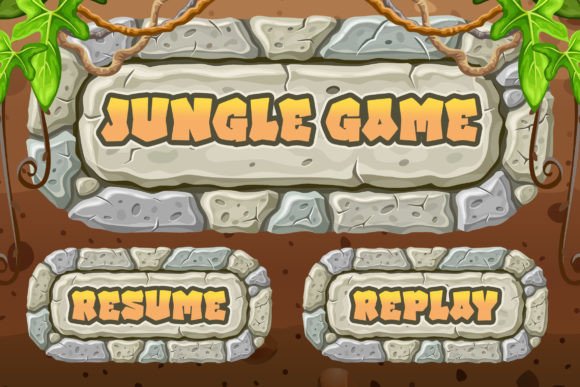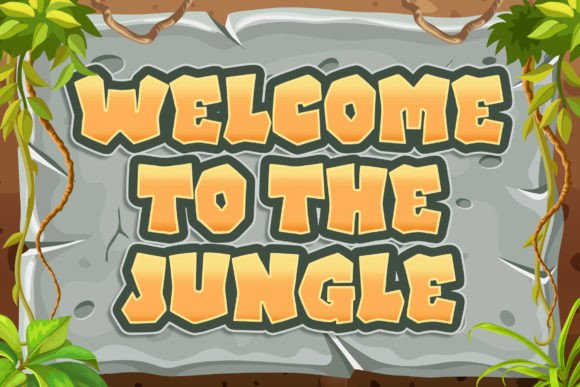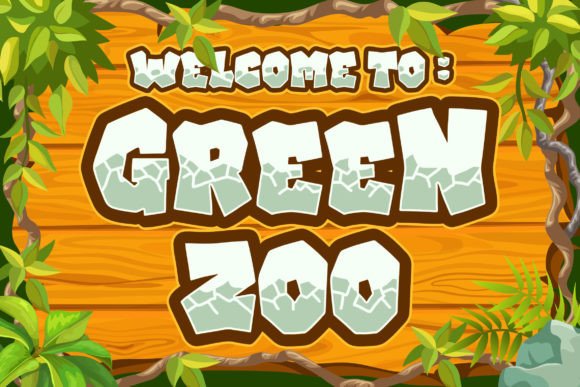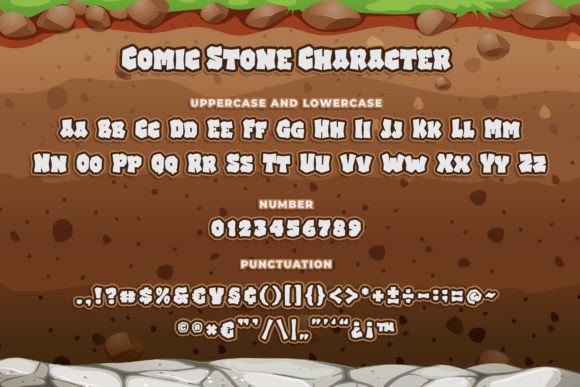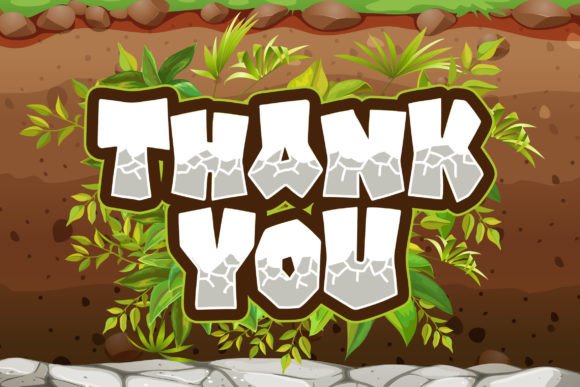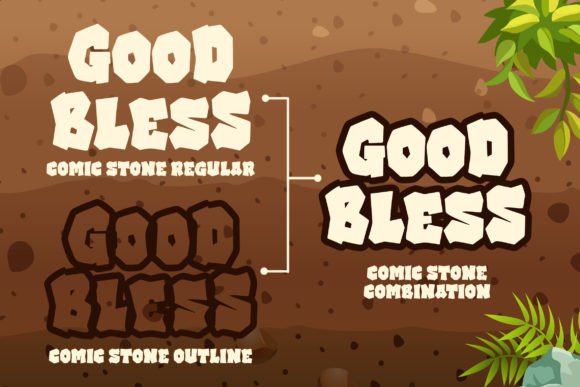
Introducing Comic Stone Font: Unleash Your Creativity with a Playful Twist
Are you on the hunt for a font that injects a dose of fun and playfulness into your designs? Look no further! Comic Stone Font is here to revolutionize your creative projects with its bouncy and vibrant display typography. Inspired by the whimsical world of stone-style typography, this font is perfect for designers and crafters seeking to add a dash of imagination and endless fun to their work.
The Perfect Font for Creative Projects
Comic Stone Font is a versatile and dynamic display font, tailor-made for a wide range of applications. Whether you’re working on:
- Book covers that need to capture the essence of a thrilling story
- Children’s books that demand a font as playful as the story itself
- Comics that require a bold and eye-catching typography
- Posters that need to stand out in a crowded space
- Packaging that aims to delight and engage
- Merchandise that wants to make a statement
- Logotypes that need to be memorable and fun
Comic Stone Font is the ideal choice. Its unique stone-style inspiration brings a fresh and exciting feel to any project, ensuring that your designs never go unnoticed.
What Makes Comic Stone Font Stand Out?
So, what sets Comic Stone Font apart from other fonts in the market?
- Playful and Bouncy Design: The font’s playful bounce and stone-style inspiration create a visually appealing and engaging aesthetic.
- High Versatility: Use Comic Stone Font across various platforms and applications, from digital media to print materials.
- Easy to Read: Despite its playful nature, the font remains clear and legible, making it perfect for both headlines and body text.
- Customizable: Experiment with different colors, sizes, and styles to make the font your own.
Tips for Using Comic Stone Font Effectively
To make the most of Comic Stone Font, consider the following tips:
- Mix and Match: Combine Comic Stone Font with other fonts to create a unique visual hierarchy.
- Play with Colors: Take advantage of the font’s playful nature by experimenting with bright and bold colors.
- Use it Sparingly: While Comic Stone Font is perfect for headlines and titles, use it sparingly for body text to maintain readability.
In conclusion, Comic Stone Font is the perfect addition to any designer’s or crafter’s toolkit. Its playful, bouncy, and imaginative design makes it an excellent choice for a wide range of creative projects. Whether you’re looking to create something that stands out, inspires creativity, or simply adds a touch of fun to your designs, Comic Stone Font is the ideal solution.